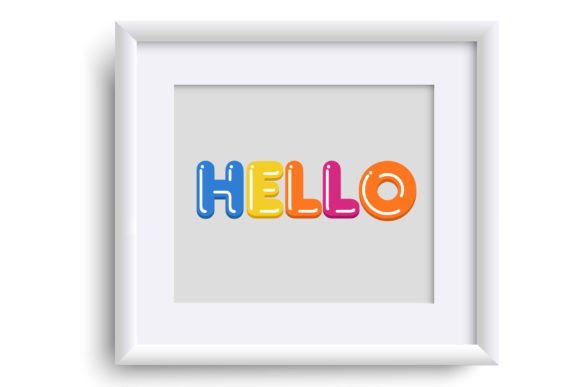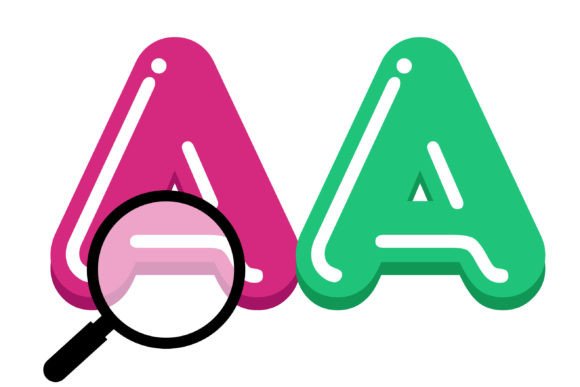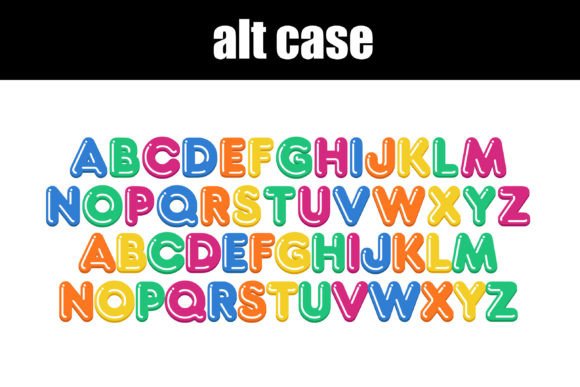
The Ultimate Design Game-Changer: Bubbly Gumbo Font
Have you ever been in the middle of a design project, and suddenly, you’re stuck on finding the perfect font? I recall a particularly frustrating experience while working on a poster design for a client’s birthday party. The design was almost complete, but the font I was using just wasn’t cutting it. It was bland, boring, and completely lacked personality. That’s when I stumbled upon the Bubbly Gumbo font, and it completely transformed my design.
An Honest Review of Bubbly Gumbo Font
What I Love About Bubbly Gumbo ✨
- ✅ Quirky and Colorful: Bubbly Gumbo is a quirky, colorful, and bubbly font that adds a dash of fun and personality to any design.
- ✅ Bubbly Shapes and Playful Characters: The font’s bubbly shapes, bright colors, and playful characters make it perfect for designs that require a touch of whimsy.
- ✅ Perfect for Various Design Projects: This font is ideal for posters, invitations, and more, making it a versatile addition to your font library.
While Bubbly Gumbo is an amazing font, there are a few minor quirks to be aware of:
- 🤔 Limited Use in Formal Designs: Due to its playful nature, Bubbly Gumbo might not be the best fit for formal designs or projects that require a more professional tone.
The Backstory of Bubbly Gumbo Font
Bubbly Gumbo was designed with one goal in mind: to bring fun and personality to designs. The font’s creator was inspired by the playful, carefree nature of childhood and wanted to bottle that magic into a font. The result is a quirky, colorful, and bubbly font that’s perfect for designs that require a touch of whimsy.
Q: Is Bubbly Gumbo suitable for formal designs?
A: While Bubbly Gumbo is an amazing font, its playful nature makes it less suitable for formal designs. It’s best used for creative projects that require a touch of whimsy.